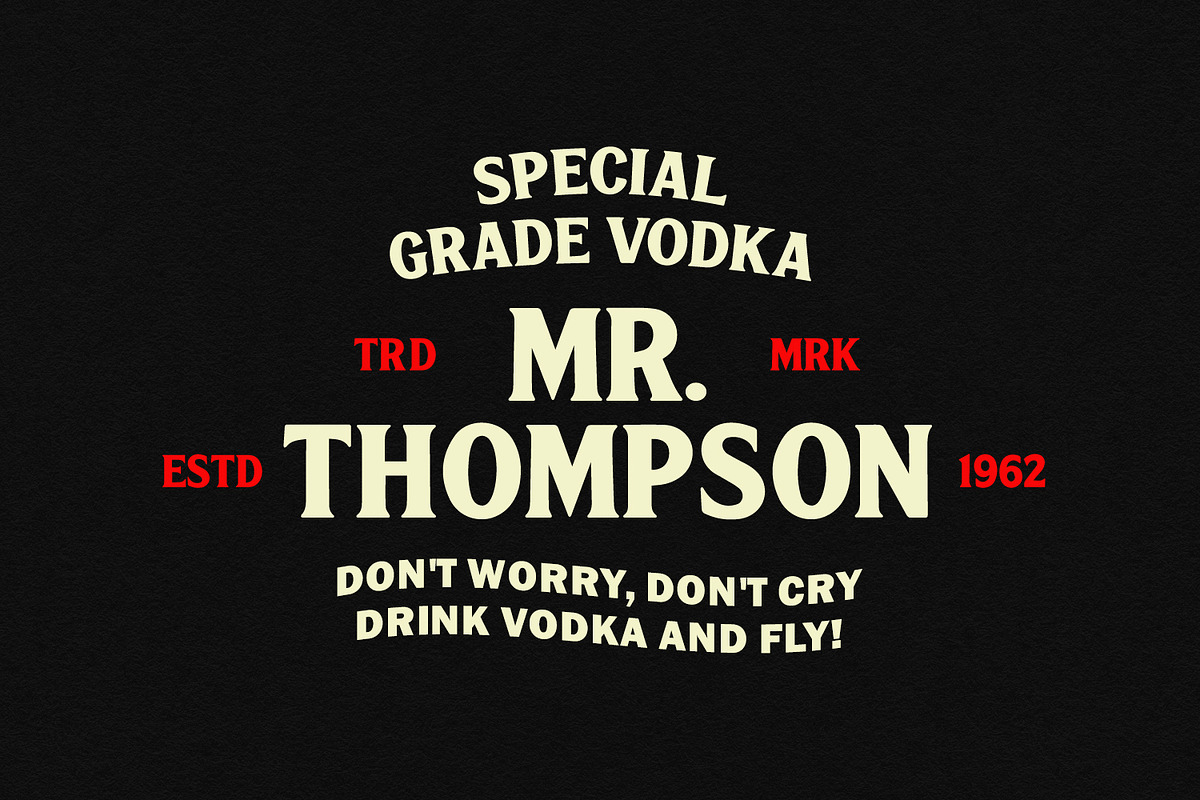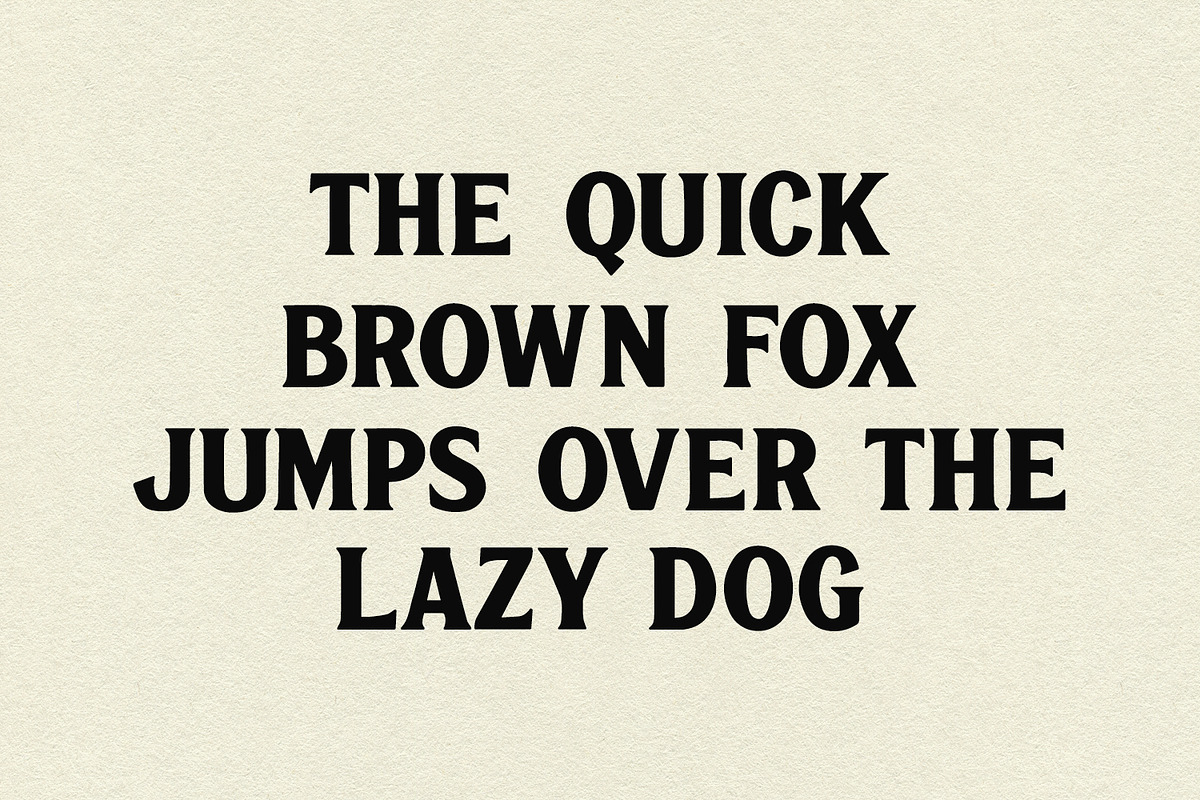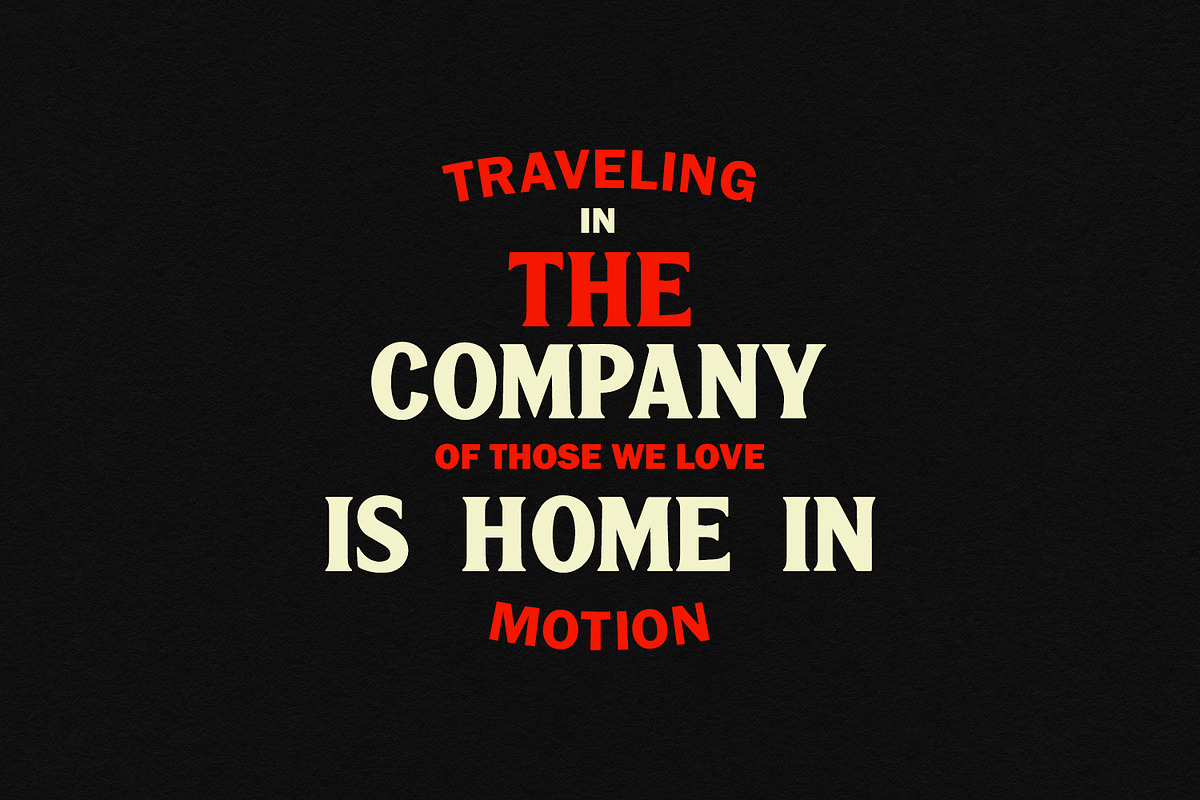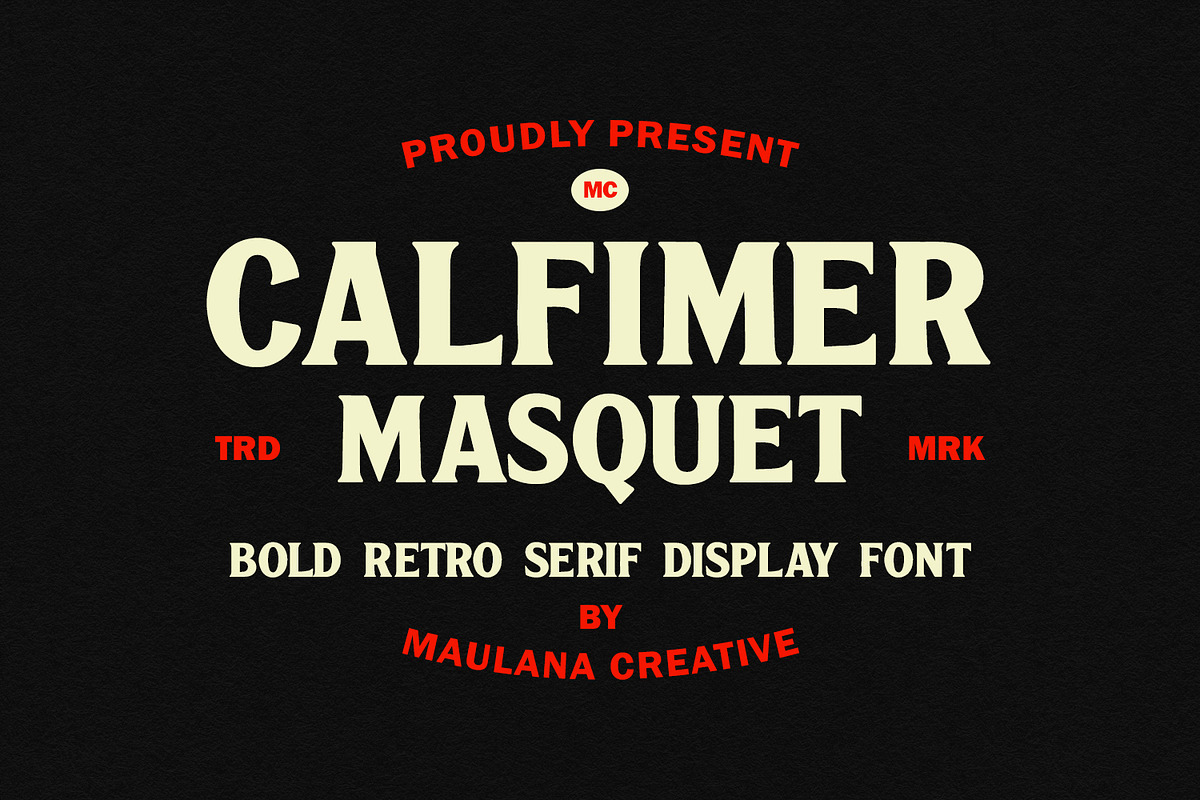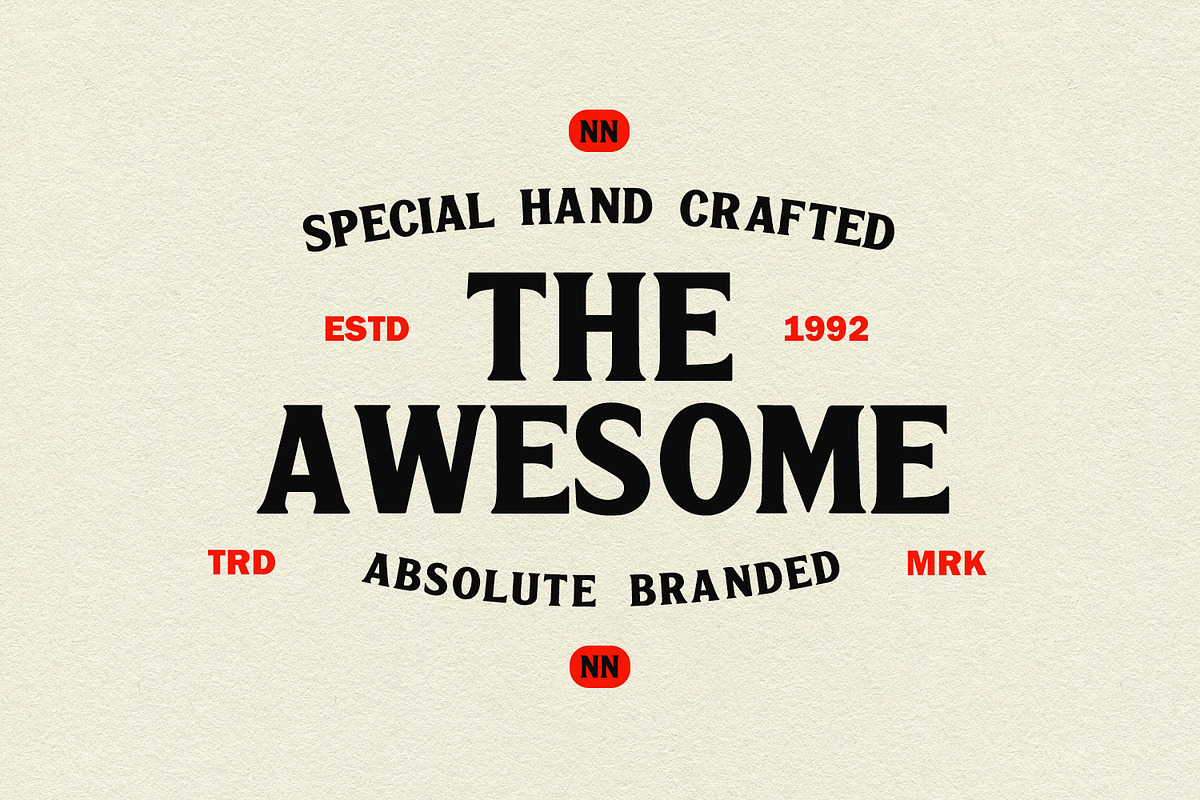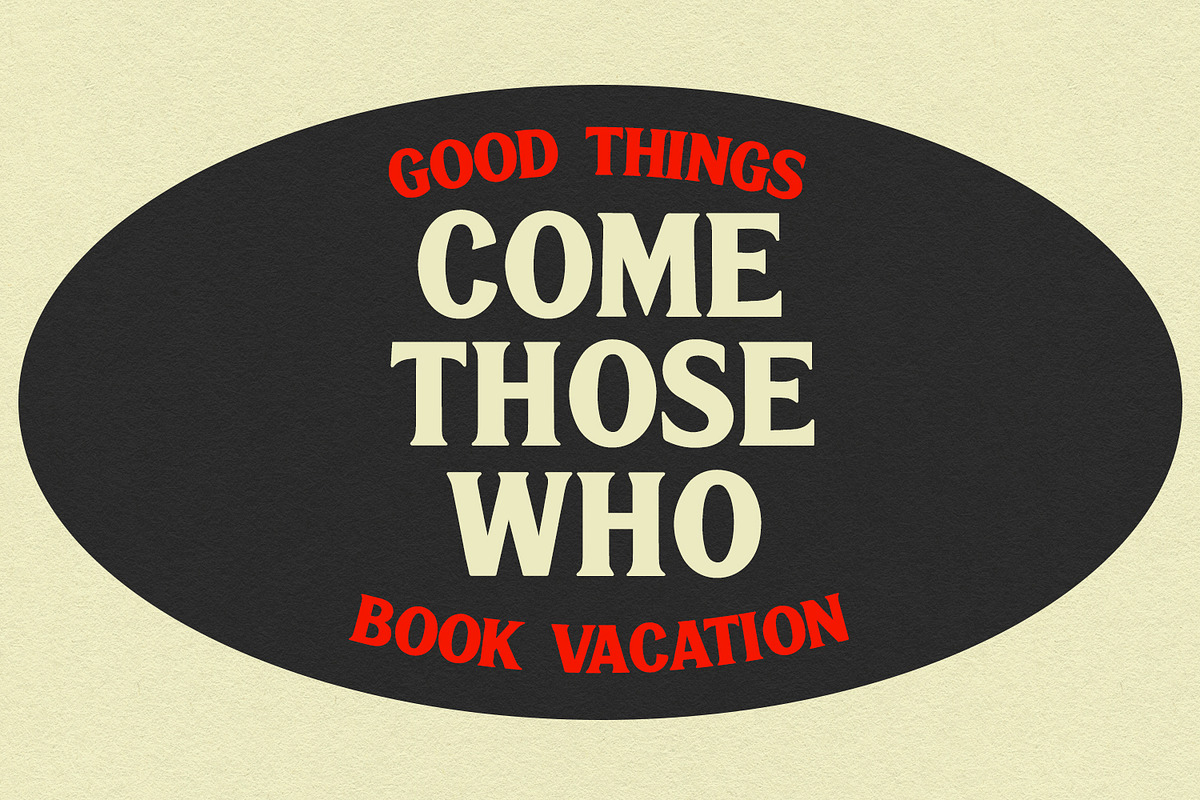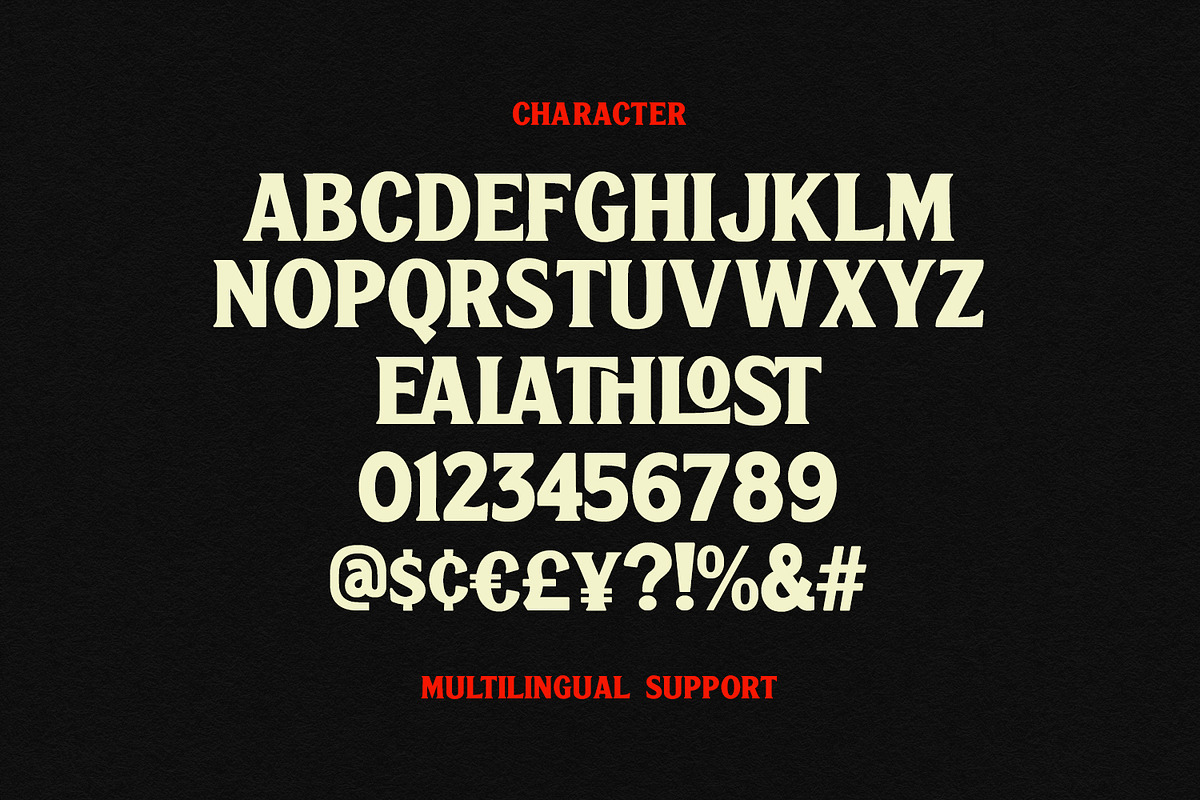
Calfimer Masquet Bold Retro Serif
Step back in time with a modern twist! Calfimer Masquet is a powerhouse display font that blends the rugged charm of vintage typography with clean, modern precision. Designed for impact, this bold retro serif features sturdy strokes and unique character alternates that give your designs an instant "custom-made" feel.
Whether you are crafting a nostalgic travel poster, a premium liquor label, or a bold lifestyle brand, Calfimer Masquet delivers a perfect balance of elegance and strength. Its high-contrast serifs and carefully balanced proportions make it highly readable while maintaining a distinct personality.
Main Features:
- Bold & Commanding Presence: Perfect for headlines and logos.
- Retro Aesthetics: Inspired by mid-century signage and classic branding.
- Unique Ligatures: Includes stylish character combinations to elevate your layout.
- Multilingual Support: Ready for global design projects.
- Versatile Usage: Ideal for posters, packaging, headers, and social media.